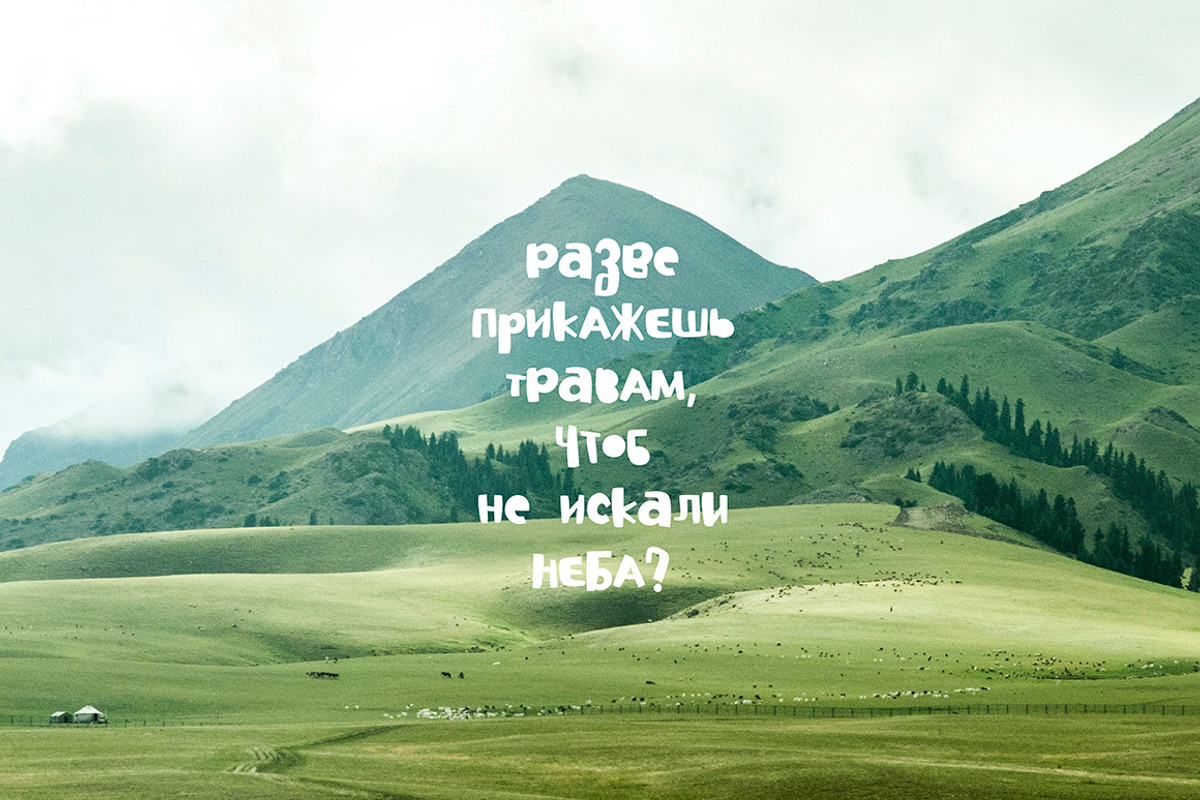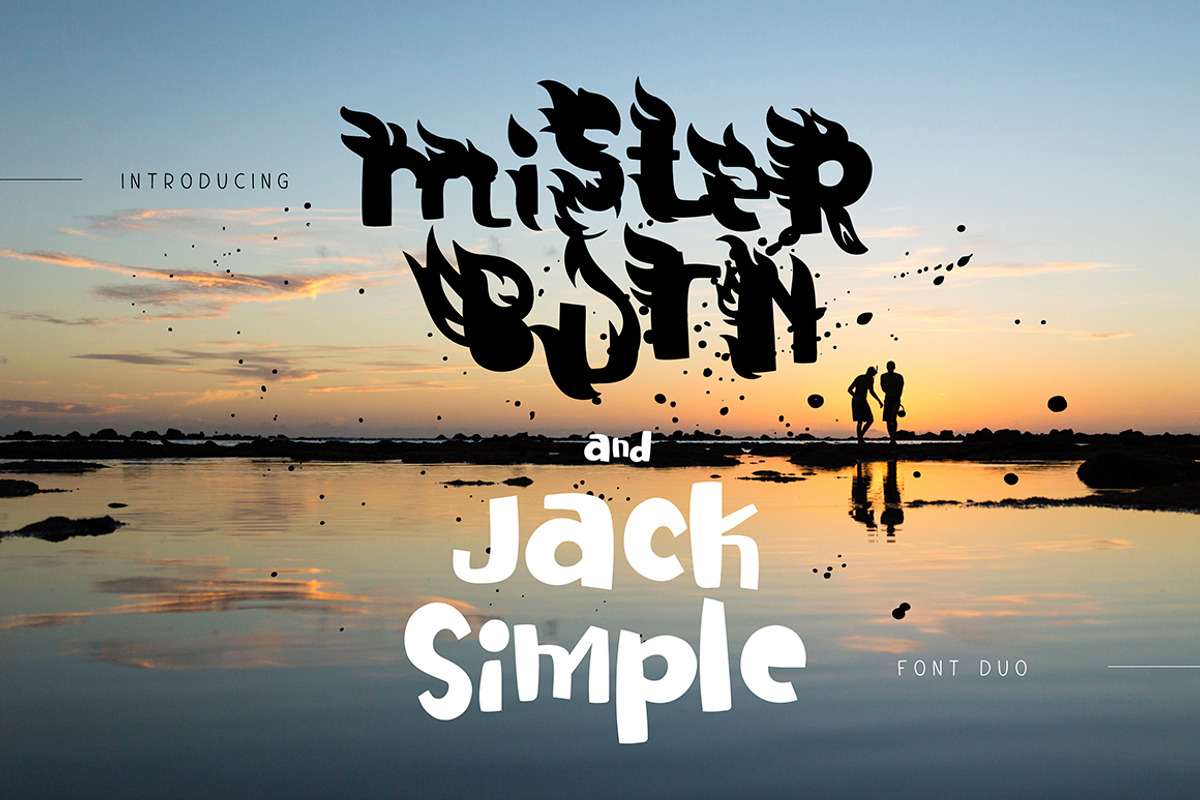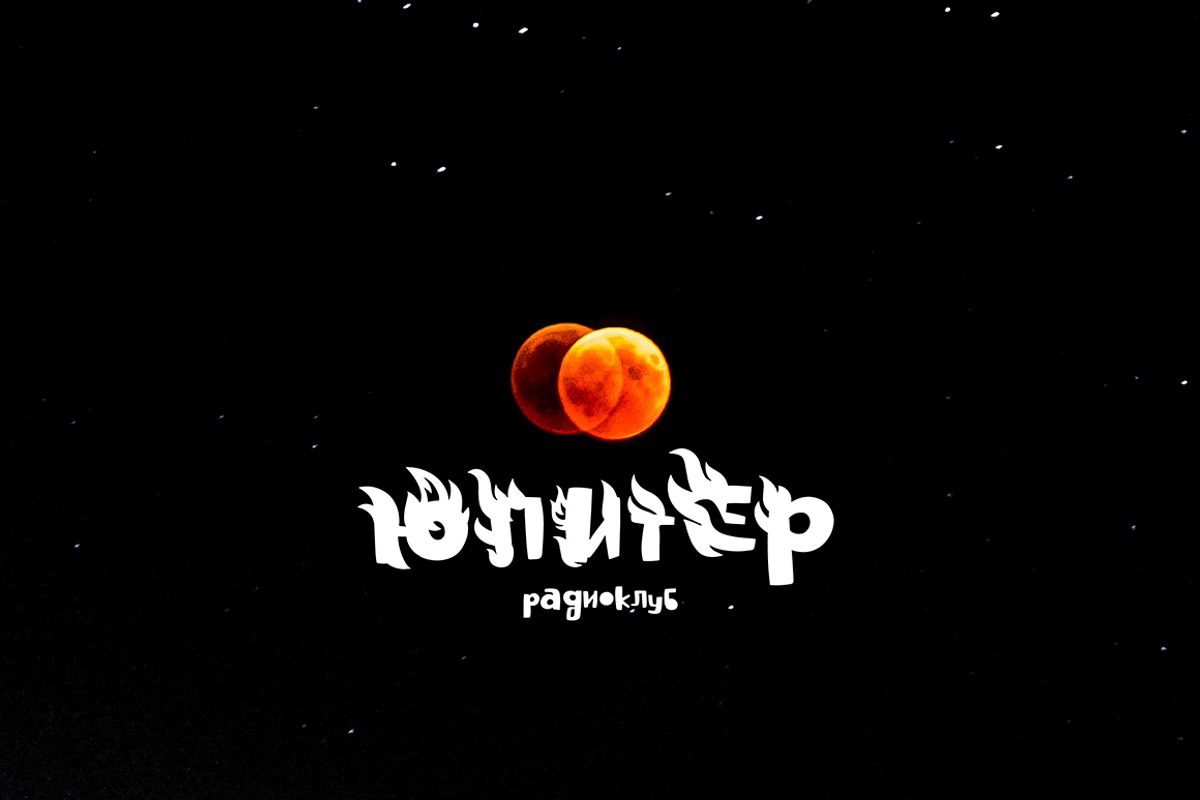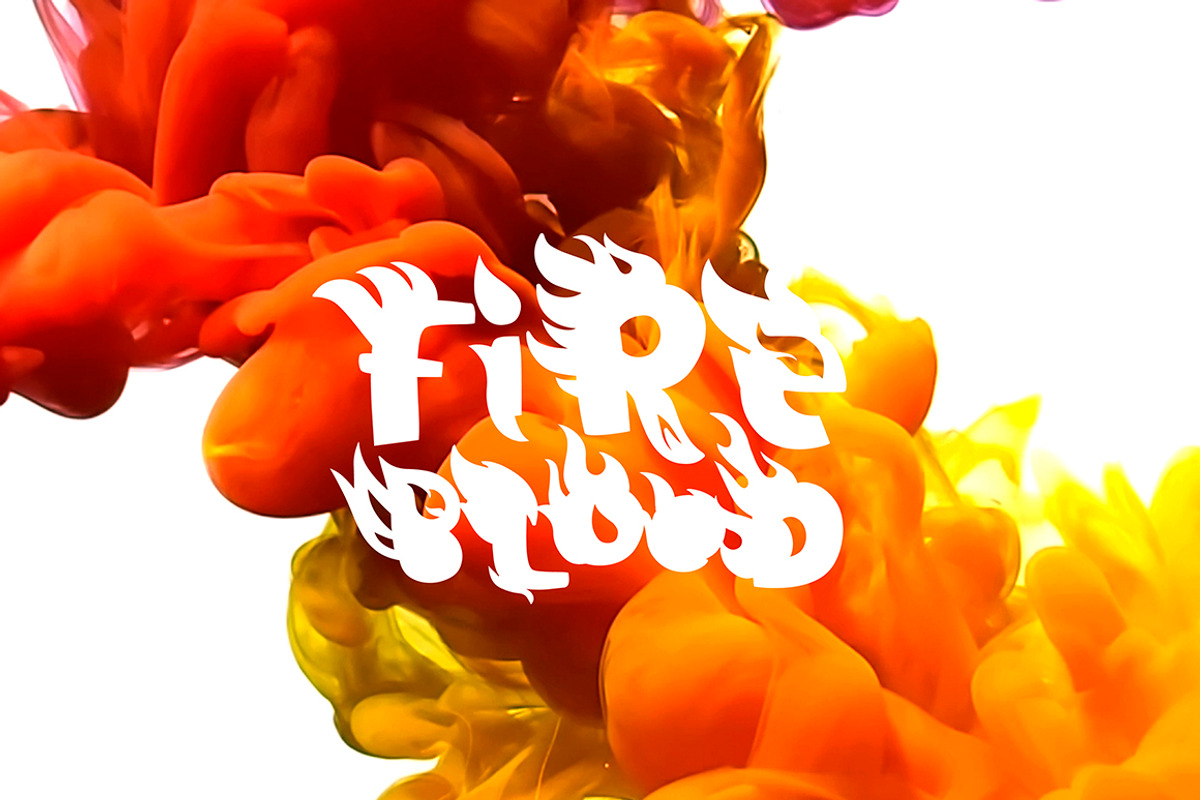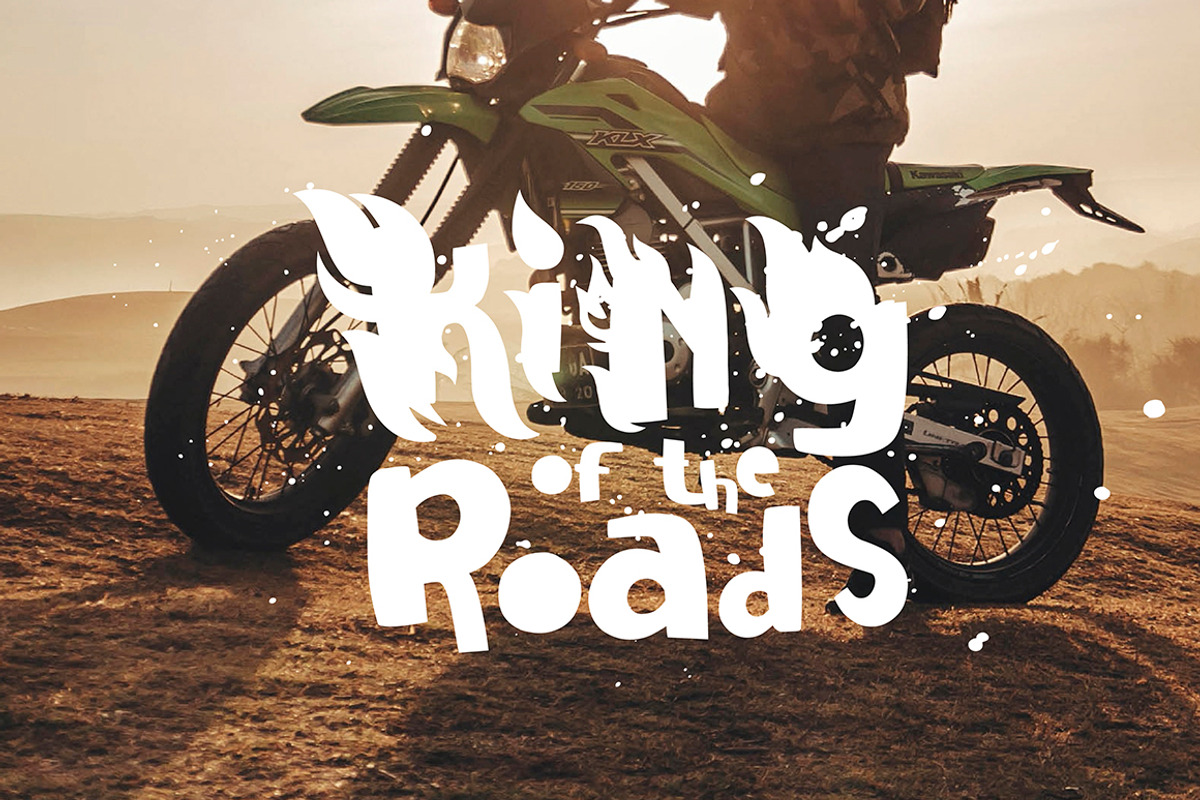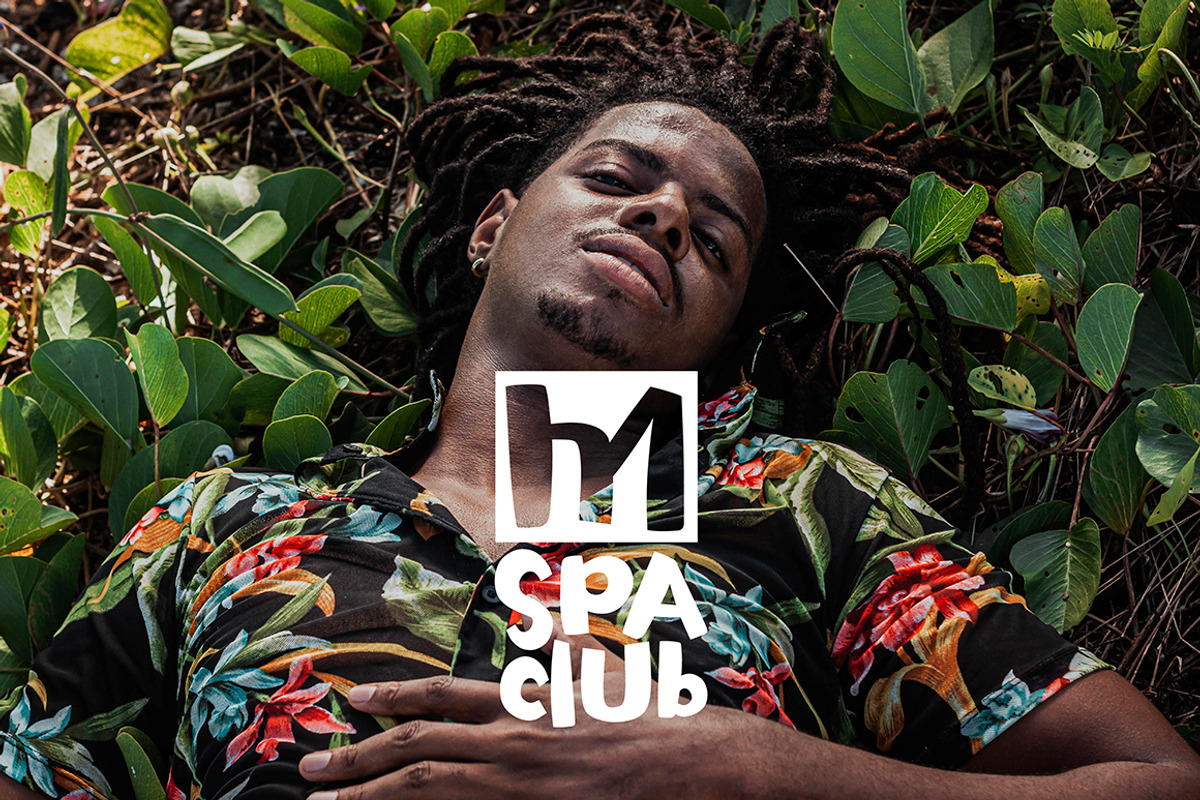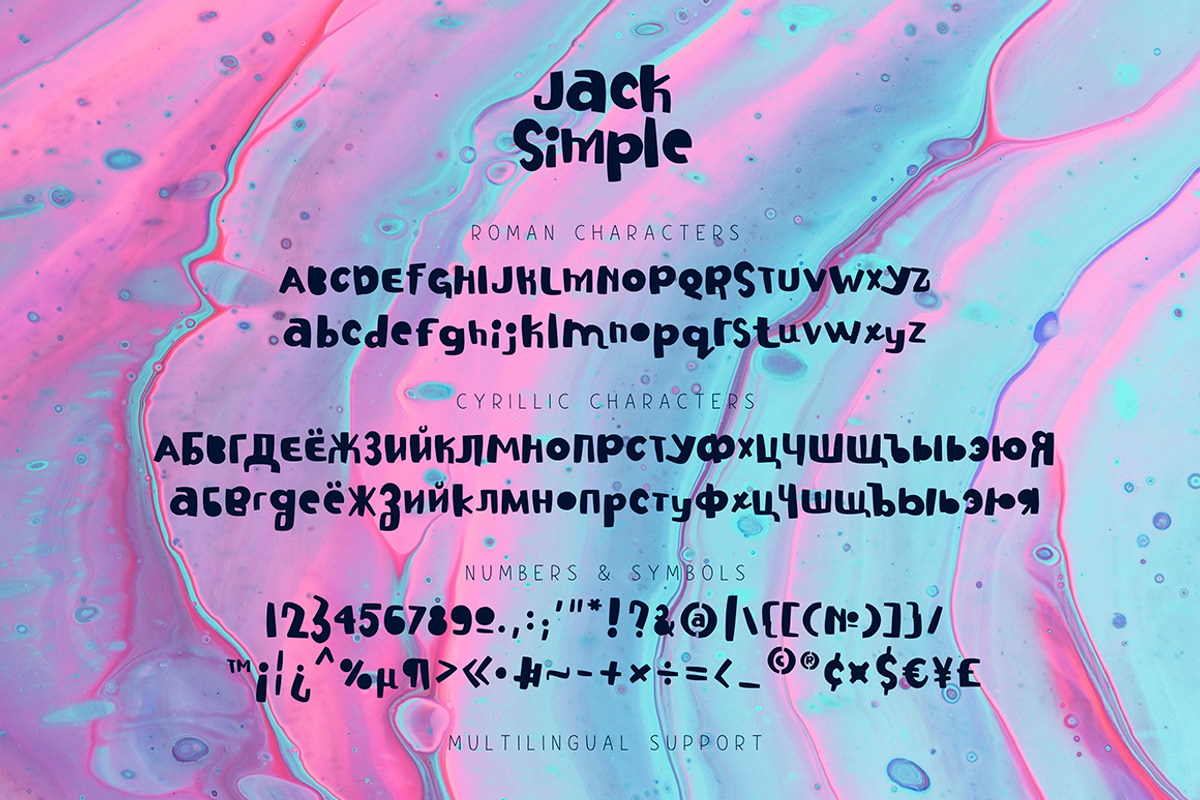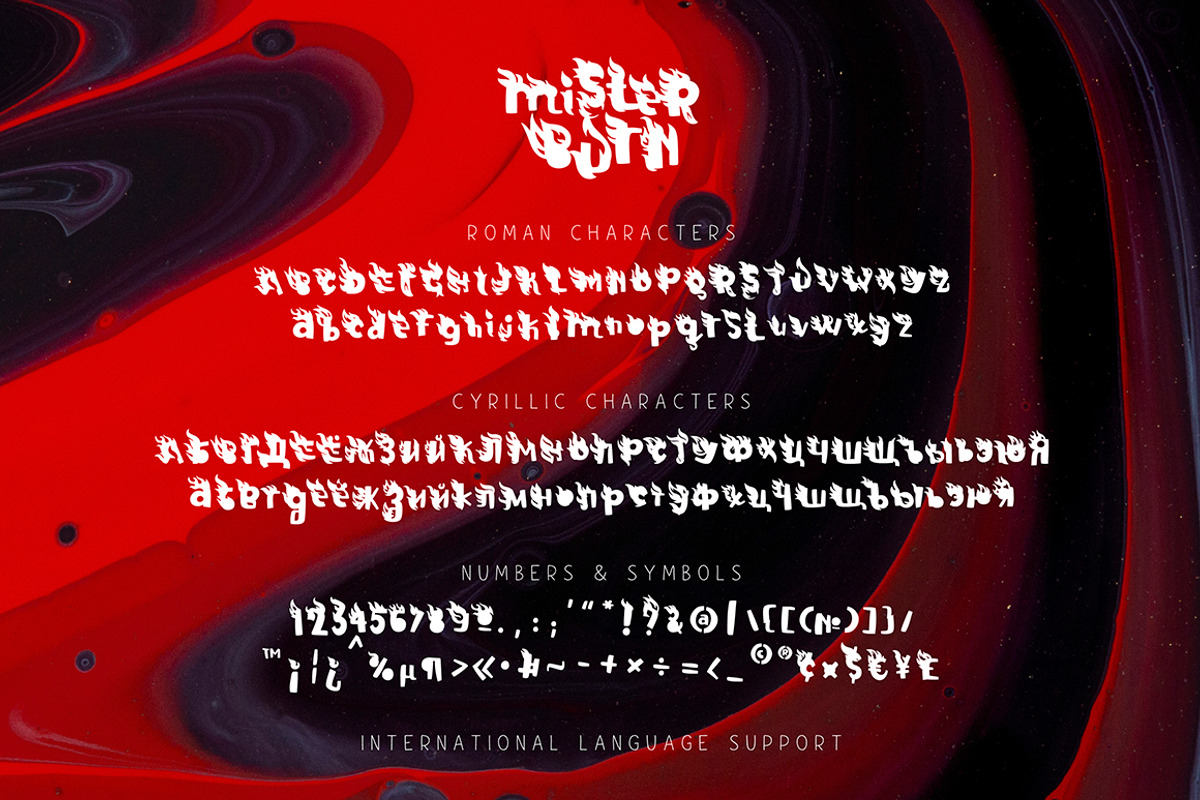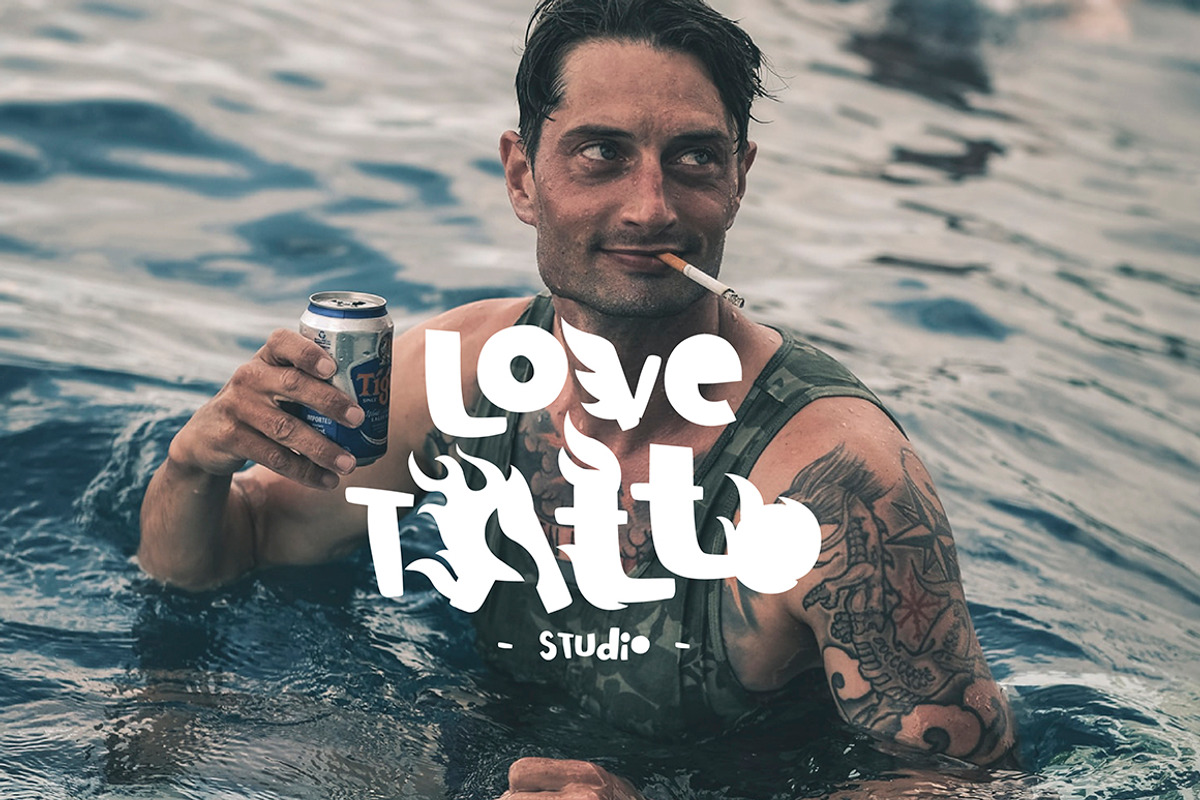
Mister Burn and Jack Simple
Introducing!
Mister Burn and Jack Simple are unique fonts, where one complements the other. Mister Burn is a fiery fervent hellish font and Jack Simple is a cute regular childish font.
They contains a full set of lower & uppercase letters, large set of punctuation glyphs, numerals, cyrillic characters, international language support for Mister Burn and multilingual support for Jack Simple.
Perfect for logos, quotes, posters, branding projects, product packaging, t-shirt, book cover, greeting cards and applicable for any graphic design.